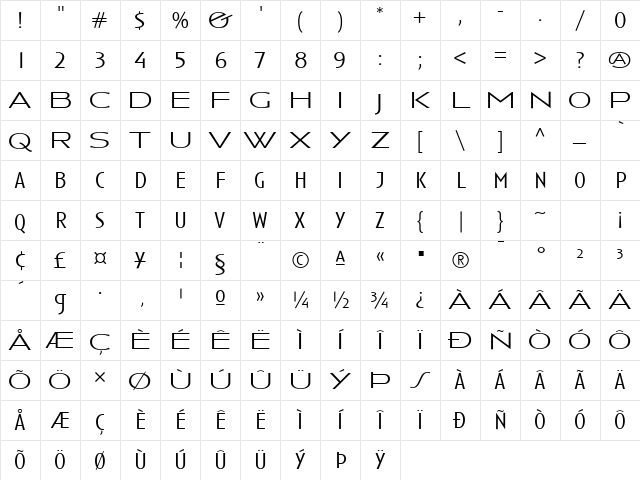
Anisette Light Regular Free Font
Anisette Light Regular
Foundry: The Font Bureau Inc
Designer: Jean-Francois Porchez
Design Context for Anisette Light
Anisette Light is a composed and adaptable typeface that performs quietly and consistently across a wide range of design contexts. Its slender proportions lend an understated elegance to any composition.
Who designed the Anisette Light Regular font?